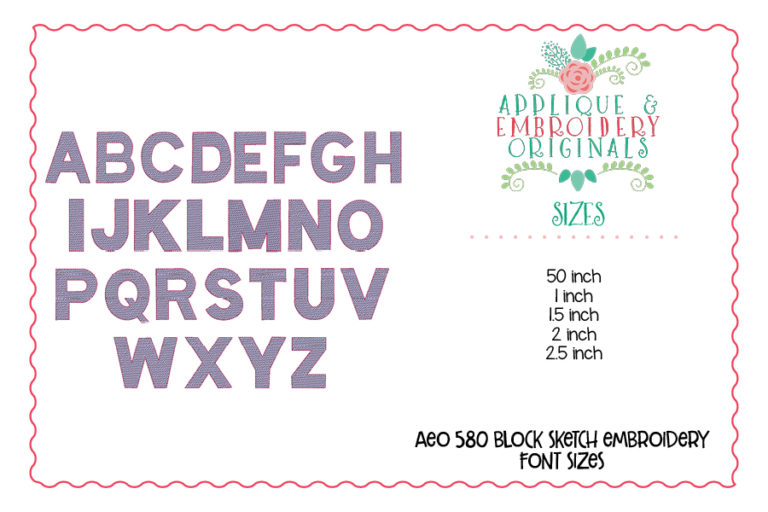
580 Block Sketch Embroidery Font for embroidery machine. Perfect for your shirt, bag, towel or other item!
Designs comes in sizes .50″, 1″, 1.5″, 2″, 2.5″. All letters include A-Z.